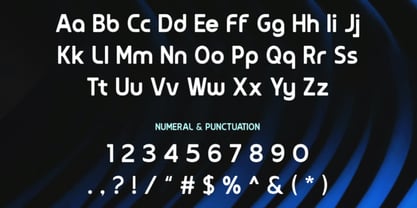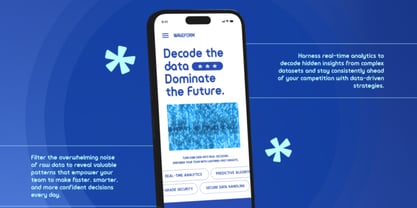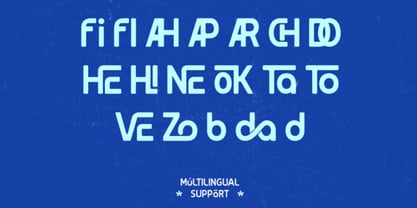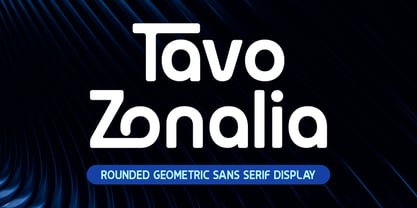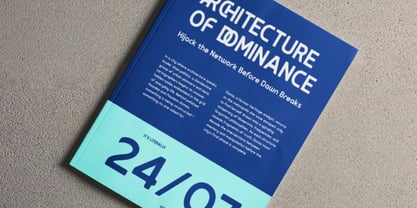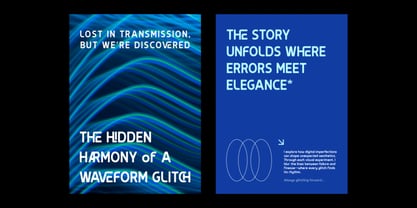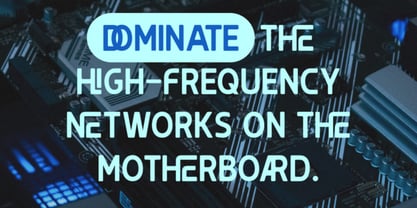
Tavo Zonalia
by Rasio Studio
The Tavo Zonalia Font Family was designed by Fajar Indra and published by Rasio Studio. Tavo Zonalia contains 1 styles. More about this family
Tavo Zonalia is a rounded geometric sans serif display typeface crafted with smooth curves, softened corners, and balanced proportions for a clean yet friendly modern look. The letterforms combine sturdy structure with subtle rounding to deliver strong readability and a contemporary tech-inspired character. Relevance and Use Cases is perfect for technology branding, startup identities, mobile apps, websites, dashboards, presentations, posters, esports or gaming visuals, and modern marketing materials that require clean, rounded, and highly legible display typography.